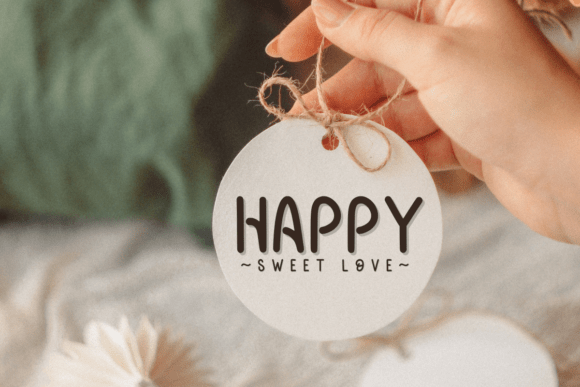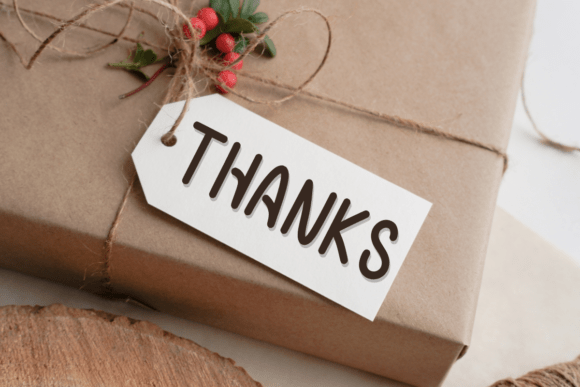
Introduction to Festive People Font
Remember the moment when you’re brainstorming ideas for a creative project, and you stumble upon the perfect font that instantly elevates your design? It’s a feeling that sparks excitement and sets the tone for a visually stunning outcome. For many designers, that perfect font can be the difference between a good design and a great one. And, for those seeking that special something, we’re excited to introduce you to the Festive People Font – a delightful, minimalist sans serif font that’s sure to bring a smile to your face.
As a valuable design resource, the Festive People Font offers a high-quality, free download that’s perfect for a wide range of creative projects, from greeting cards and wedding invitations to gift labels and t-shirts. With its transparent background and clean lines, this font is an excellent choice for designers looking to create visually appealing designs without the hassle of complicated layouts.
- High-quality design resource ideal for creative projects, especially those related to the holiday season or winter.
- Unique characteristics include a playful, festive feel and a wide range of expressive characters, making it suitable for various creative projects.
Honest Review: Festive People Font
I recently came across the Festive People Font, a design resource that promises to add a touch of holiday cheer to any creative project. As a designer, I was eager to put it to the test.
- ⚠️ The font is limited to a specific holiday theme, which may not be suitable for all design projects.
Overall, I was impressed with the Festive People Font. While it has some limitations, it is a great resource for designers who want to add a touch of holiday cheer to their creative projects. I would recommend it to anyone looking for a high-quality, free design resource.
The Festive People Font is a high-quality, free download design resource ideal for creative projects. Its transparent background makes it versatile for various applications.
The Festive People Font is suitable for various creative projects, including social media graphics, blog posts, flyers, brochures, and more. Its versatility and high-quality design make it an ideal choice for designers and non-designers alike.